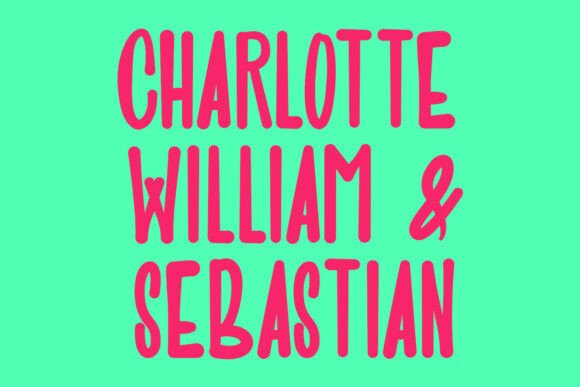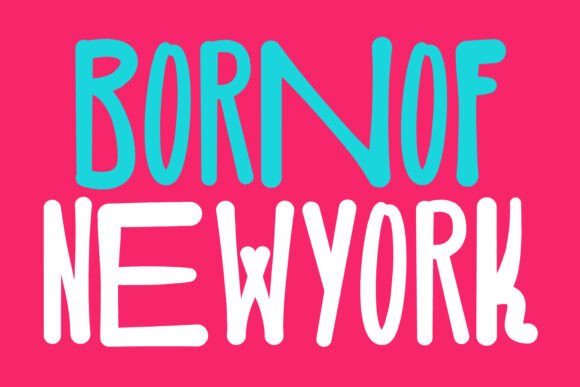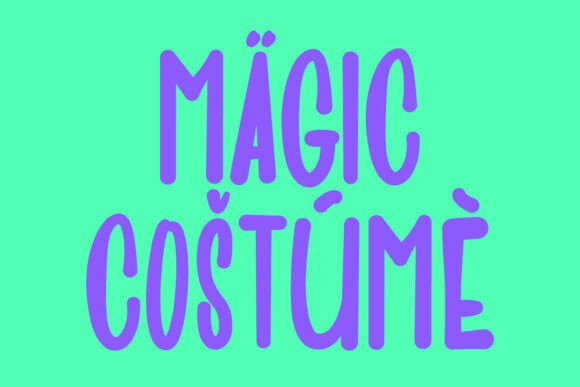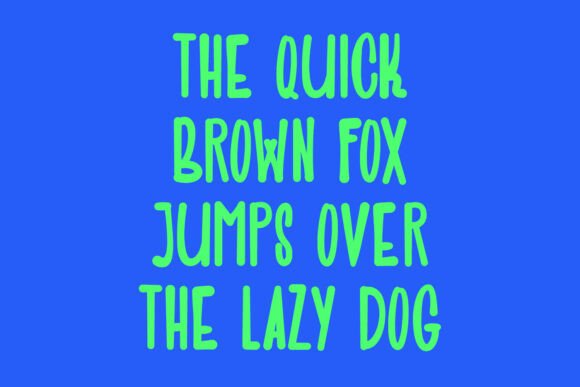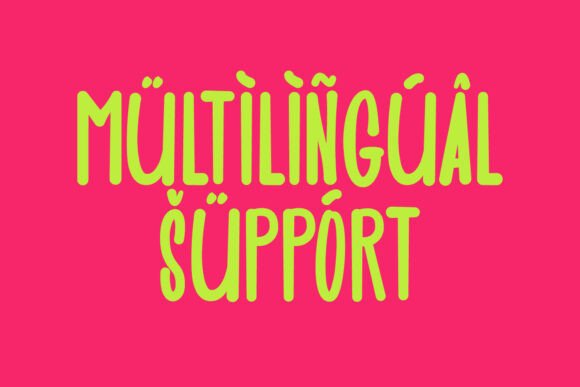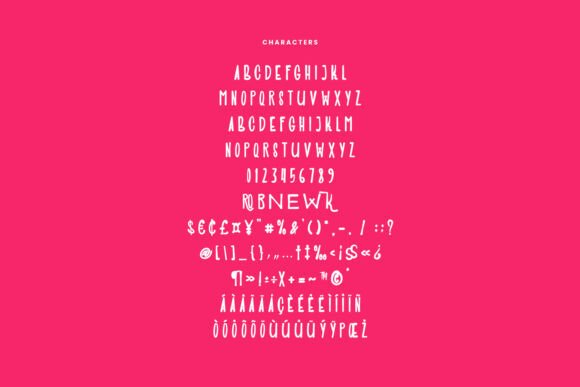
Brokes New Font: A Stylish Display Font for Creative Projects
Are you tired of using the same old fonts for your designs and crafts? Look no further than Brokes New Font, a stylish display font that is sure to elevate your creative projects to the next level. With its unique and artistic feel, Brokes New Font is perfect for designers and crafters who want to add a personal touch to their work.
What Makes Brokes New Font So Special?
Brokes New Font is a hand-painted font that has a distinctive, brush-stroked look. This gives it a one-of-a-kind feel that is sure to grab attention. The font is perfect for creating eye-catching designs, from posters and flyers to logos and branding materials. Its unique style also makes it ideal for crafters who want to add a personal touch to their handmade projects, such as scrapbooking, card making, and journaling.
Key Features of Brokes New Font
- Hand-painted look: Brokes New Font has a distinctive, brush-stroked look that gives it a unique and artistic feel.
- Stylish display font: This font is perfect for creating eye-catching designs and headlines.
- Versatile: Brokes New Font can be used for a wide range of creative projects, from posters and flyers to logos and branding materials.
Tips for Getting the Most Out of Brokes New Font
- Experiment with different colors: Brokes New Font looks great in a wide range of colors, so don’t be afraid to experiment and find the perfect hue for your design.
- Use it sparingly: Because of its bold and eye-catching style, it’s best to use Brokes New Font sparingly. Use it for headlines and titles, and then switch to a simpler font for body text.
- Pair it with other fonts: Brokes New Font looks great when paired with other fonts. Try pairing it with a simple sans-serif font for a bold and modern look.
Brokes New Font for Crafters
Brokes New Font is not just for designers. Crafters can also use this font to add a personal touch to their handmade projects. Here are a few ideas for using Brokes New Font in your crafting projects:
- Scrapbooking: Use Brokes New Font to add titles and captions to your scrapbook pages.
- Card making: Add a personal touch to your handmade cards with Brokes New Font.
- Journaling: Use Brokes New Font to add decorative titles and headings to your journal.